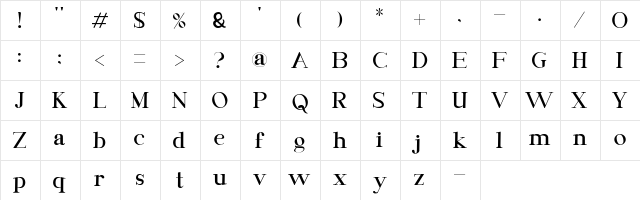
Balguin Regular
| Designer | Muksal Craeative. 2020 |
Balguin is a composed and adaptable typeface that performs quietly and consistently across a wide range of design contexts.